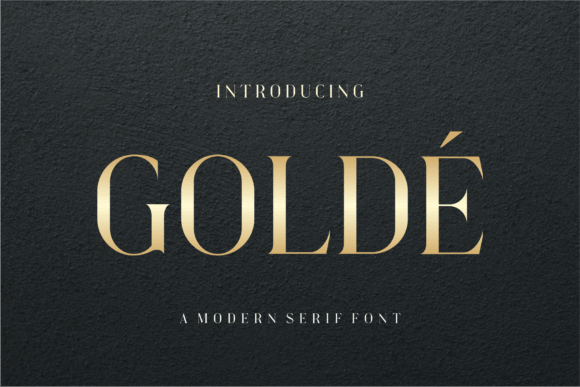
Golde Font: Elevate Your Design with Elegance and Sophistication
The world of typography is vast and diverse, with numerous font styles to choose from, each with its unique characteristics and uses. Among these, the Golde Font and its variant, the Golde Serif Font, have gained significant attention for their minimalist yet impactful design. Inspired by famous minimalist logos, these fonts are perfect for a wide range of design applications, including templates, brochures, videos, advertising branding, logos, invitations, layout design, elegant crafting, beauty design, and more.
What is Golde Font?
Golde Font is a typeface that embodies simplicity and elegance. Its clean lines, simple shapes, and uncluttered design make it an excellent choice for designers looking to convey a sense of sophistication and modernity. The font’s minimalist approach is inspired by some of the most iconic logos in the world, making it a versatile tool for various design projects.
Introducing Golde Serif Font
The Golde Serif Font is a variant of the Golde Font, distinguished by the addition of serifsโsmall lines or flourishes at the ends of the letters. This addition gives the Golde Serif Font a more traditional and classic look while maintaining the clean and simple aesthetic of its sans-serif counterpart. The Golde Serif Font is perfect for projects that require a bit more elegance and formality.
Design Applications of Golde Font and Golde Serif Font
The versatility of Golde Font and Golde Serif Font makes them suitable for a wide range of design applications. Here are some of the key areas where these fonts can make a significant impact:
- Design Templates: Whether it’s a website template, a social media graphic, or a printable art template, Golde Font and Golde Serif Font can add a touch of elegance and sophistication.
- Brochures and Flyers: The clean and simple design of these fonts makes them perfect for brochures and flyers, where clear communication and aesthetic appeal are crucial.
- Videos: For video content, such as explainer videos, promotional videos, or even movie titles, Golde Font and Golde Serif Font can provide a professional and engaging visual experience.
- Advertising and Branding: For logos, branding materials, and advertising campaigns, these fonts offer a modern and minimalist look that can help brands stand out.
- Logos: The minimalist design of Golde Font and Golde Serif Font makes them ideal for logo creation, where simplicity and memorability are key.
- Invitations: For event invitations, wedding invites, or any formal invitation, Golde Serif Font can add a touch of elegance and class.
- Layout Design: In editorial design, such as magazines, newspapers, or blogs, these fonts can help create a clean, readable, and visually appealing layout.
- Elegant Crafting and Beauty Design: For beauty blogs, crafting tutorials, or any content that requires a touch of elegance, Golde Font and Golde Serif Font are excellent choices.
Tips for Using Golde Font and Golde Serif Font
To make the most of Golde Font and Golde Serif Font in your designs, consider the following tips:
- Combine with Images Wisely: Since these fonts are minimalist, they can be paired with a wide range of images. However, ensure that the images complement the font’s elegance and don’t compete with it.
- Play with Spacing: The simplicity of these fonts allows for creative use of spacing. Use negative space effectively to create impactful designs.
- Experiment with Colors: While these fonts look great in black and white, experimenting with colors can add an extra layer of appeal to your designs.
- Consider Hierarchy: When using these fonts, especially in longer texts, create a visual hierarchy by varying font sizes, weights, and styles to maintain readability and interest.
Golde Font and Golde Serif Font are powerful tools in the world of typography, offering a blend of simplicity, elegance, and versatility. Whether you’re a professional designer or a DIY enthusiast, these fonts can elevate your design projects, adding a touch of sophistication and modernity. With their wide range of applications and ease of use, Golde Font and Golde Serif Font are set to become staples in your typography toolkit.